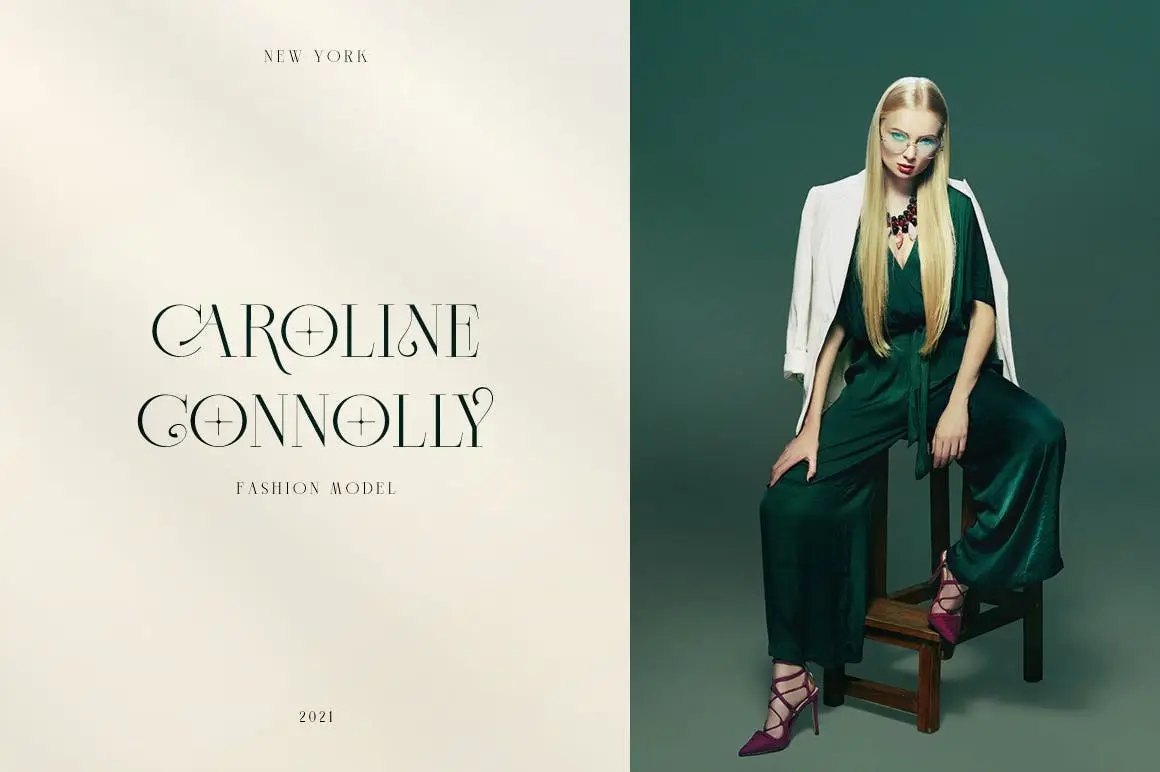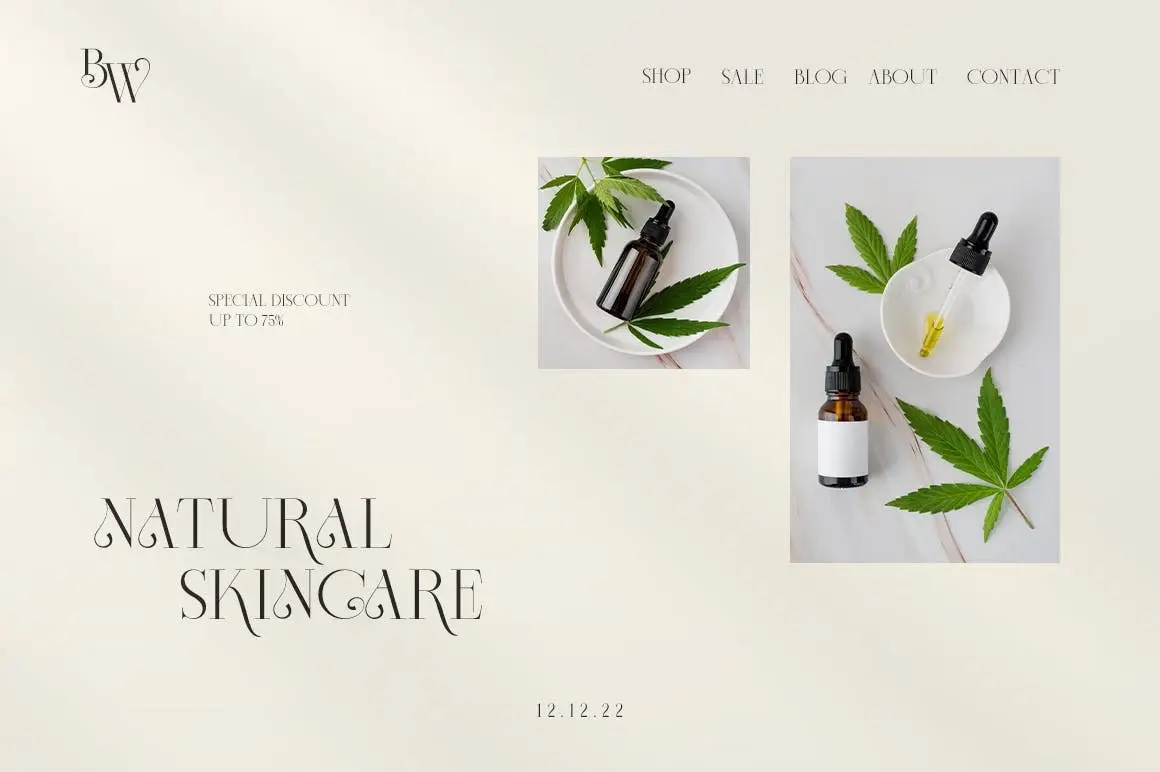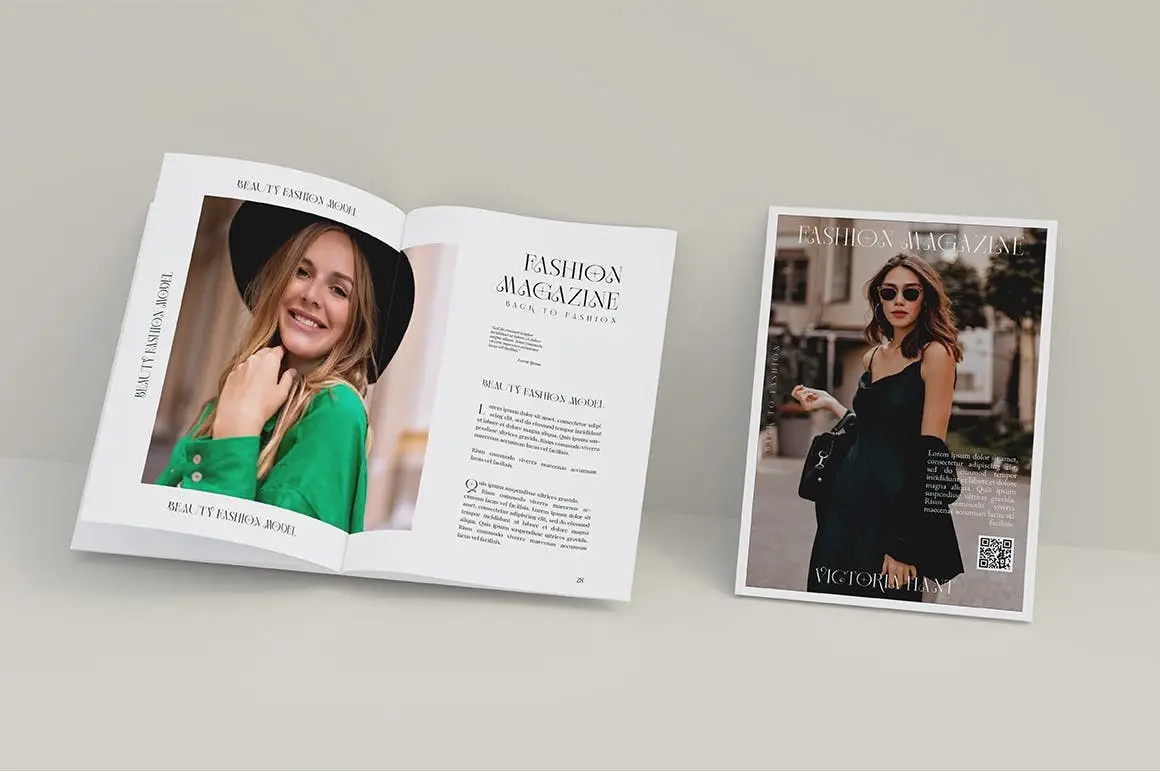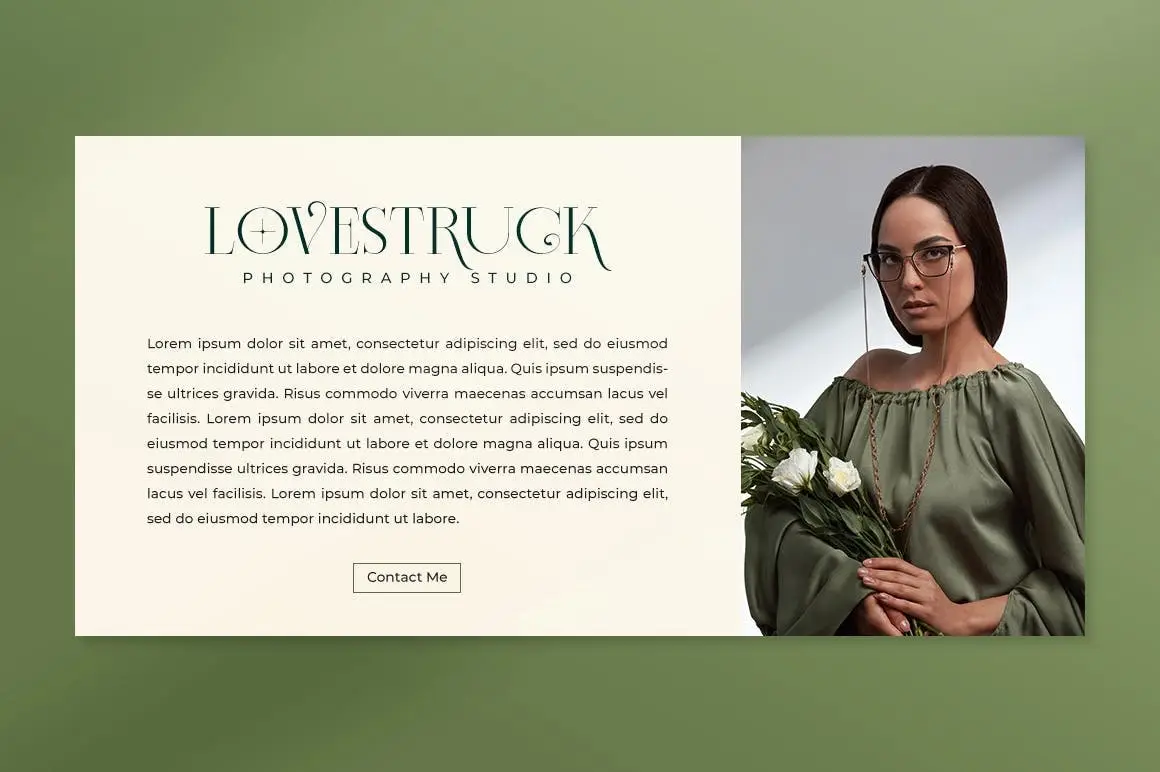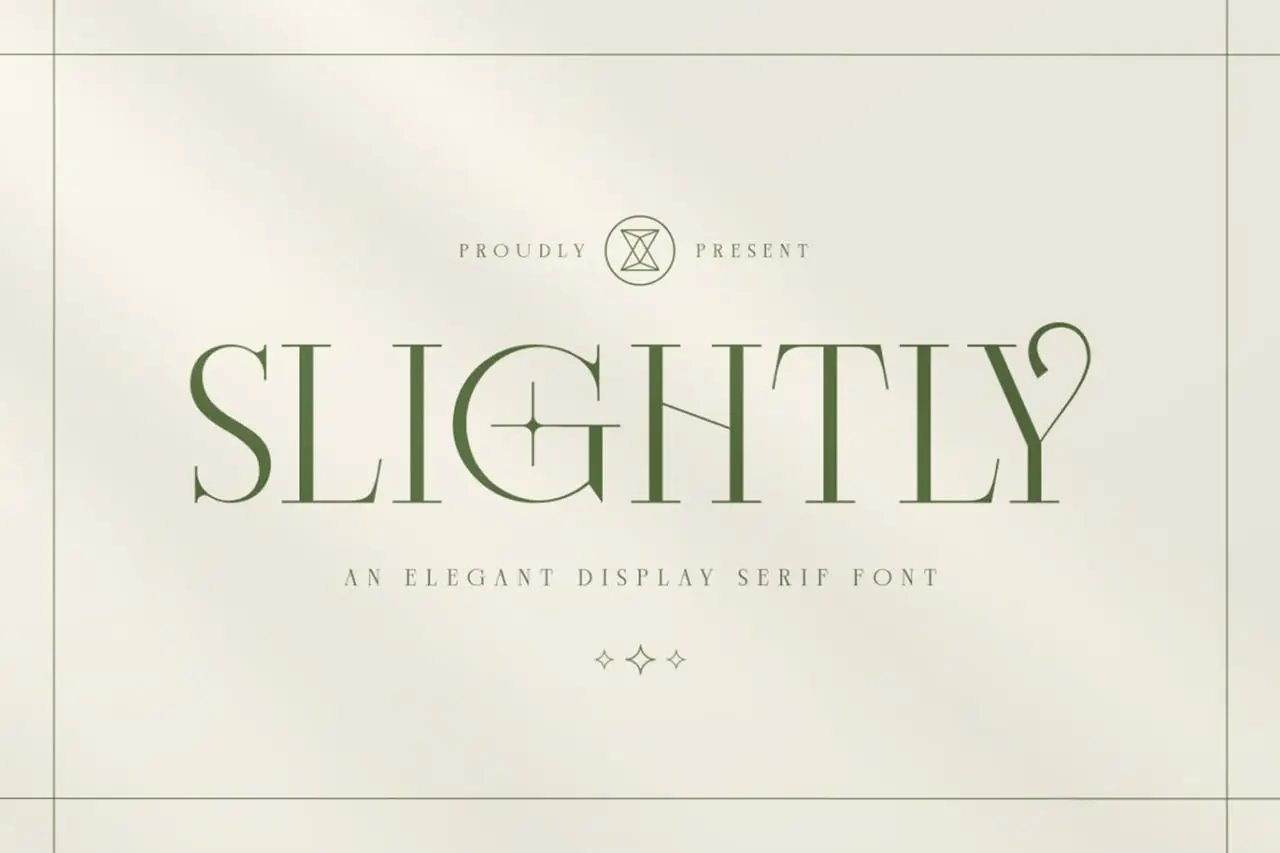
Slightly-Elegant Display Serif Font
The Slightly-Elegant Display Serif Font combines classic serif elements with a modern twist, making it ideal for a variety of design projects. This font features a unique blend of elegance and readability, perfect for both digital and print applications.
• Weights: Light, Regular, Bold
• Ideal for branding projects, logos, and headlines.
• Perfect for editorial design, invitations, and marketing materials.
• Great for use in user interfaces and web design to enhance visual appeal.